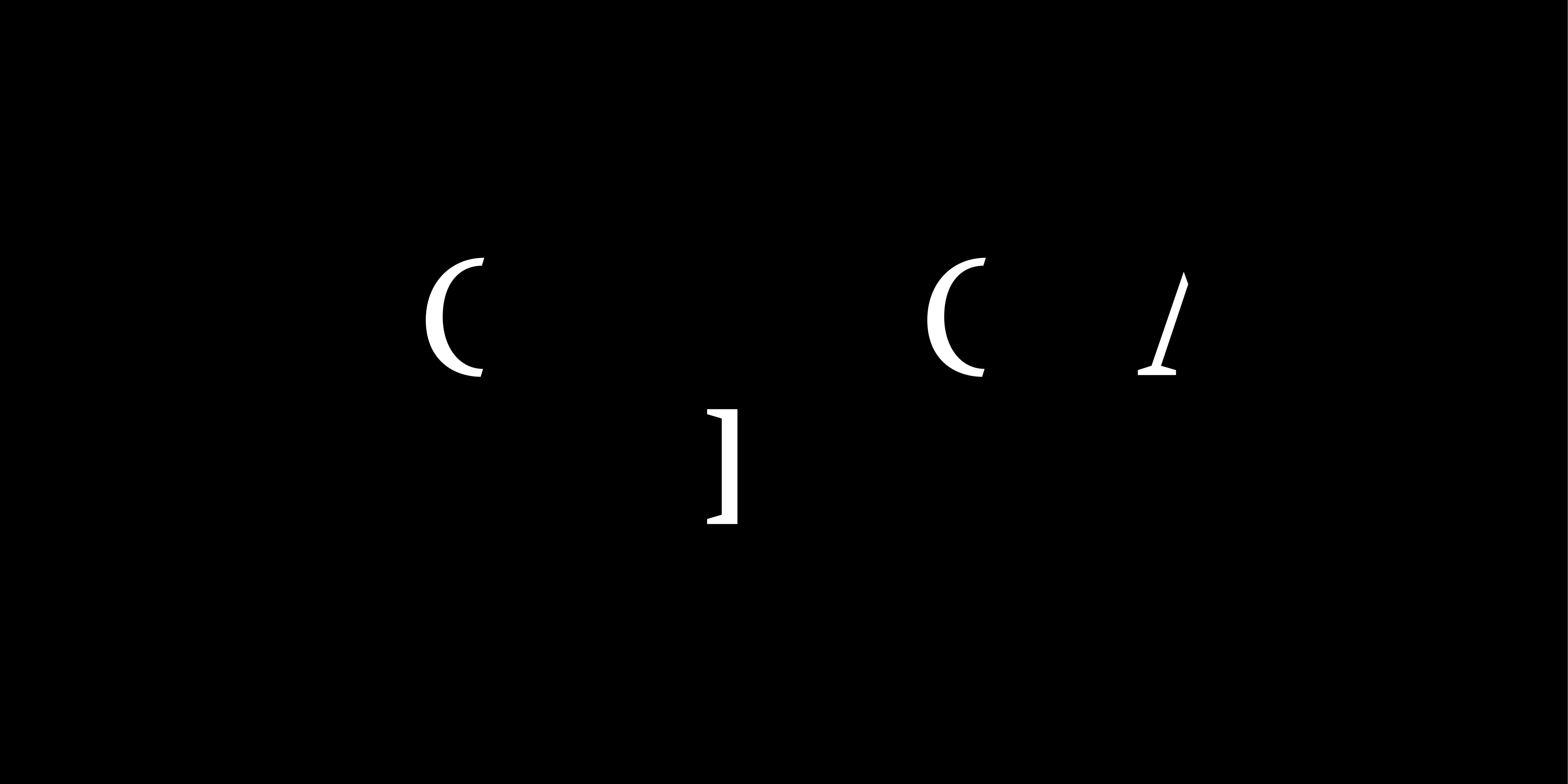
This stencil type typeface stands out for its geometrical structure and its elementary forms. However, a number of details seem to show what Damien Gautier was by characters of body type to determine his choices. Rare indeed are characters of this type that possess oldstyle numbers and ligatures that are usually reserved for historical characters!
Battling is a geometrical lineal, inspired by the “Universals” that were distributed by the Dutreix foundry in Limoges in the 1930s, and that were probably intended to compete with the Europe (the French name given to Paul Renner's Futura) in the field of the “modernist” sans serifs. Battling is a robust typeface that conserves the awkwardness of its original model. It possesses a sort of “adolescent vigour”, frustrated and rowdy.
Matthieu Cortat has produced Battling in four weights (light, regular, medium, bold) with their corresponding italics. In medium and bold, it avails of a series of uppercase titling characters, decorated with a thin thread of light. It also possesses a series of roman numerals in small capitals.